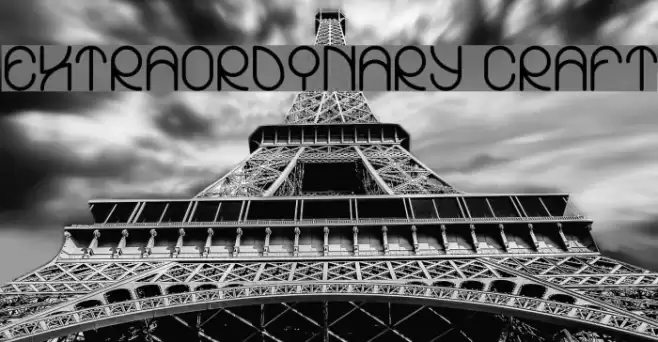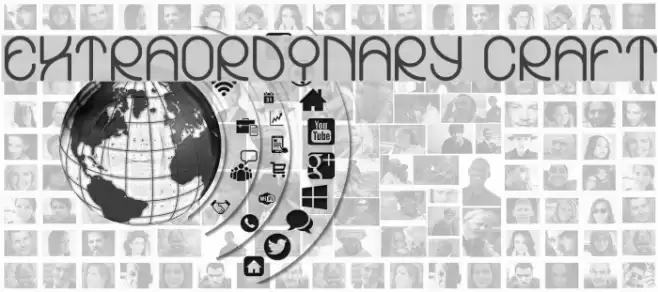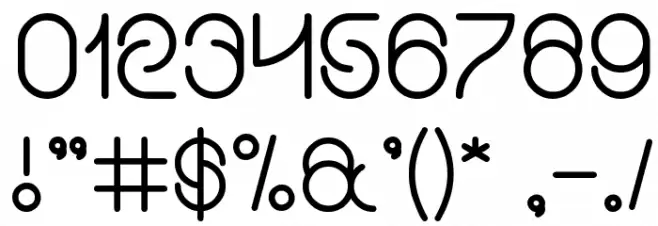
EXTRAORDINARY CRAFT Font
EXTRAORDINARY CRAFT Description
This font features a unique and modern design with a playful twist. The characters are rounded and have a consistent stroke width, giving them a clean and cohesive appearance. The uppercase letters are bold and geometric, while the lowercase letters maintain a similar style with a slightly softer touch. The numerals are distinctive, with a futuristic feel that complements the overall design. Special characters are well-integrated, maintaining the font's modern aesthetic. This font is ideal for projects that require a contemporary and creative look.
A modern, rounded font with a playful and cohesive design from Uncategorized fonts.
- Proposed Projects: Ideal for branding, advertising, packaging, and digital media projects that require a modern and creative touch.
- Use Case: Headlines, Logos, Branding